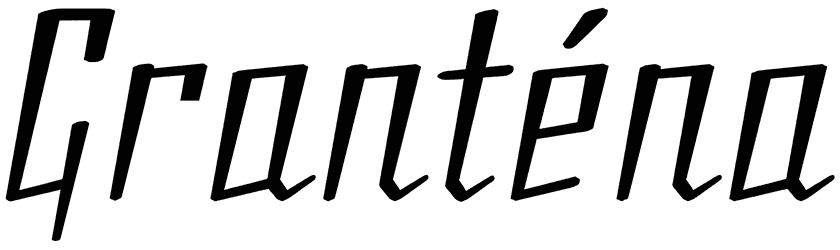
Granténa Font
If the words of your design need a delicate and modern mood that can capture more attention, this display font would be a cool selection. This mechanical font consists of three versions, and you can use the intended one…
If the words of your design need a delicate and modern mood that can capture more attention, this display font would be a cool selection. This mechanical font consists of three versions, and you can use the intended one for your project. Test the Granténa font for your innovative designs, such as an automotive company advertisement billboard, and have a distinct promotion.
Dynamic font with a retro feeling intended for headers, titles and decorative parts of text.